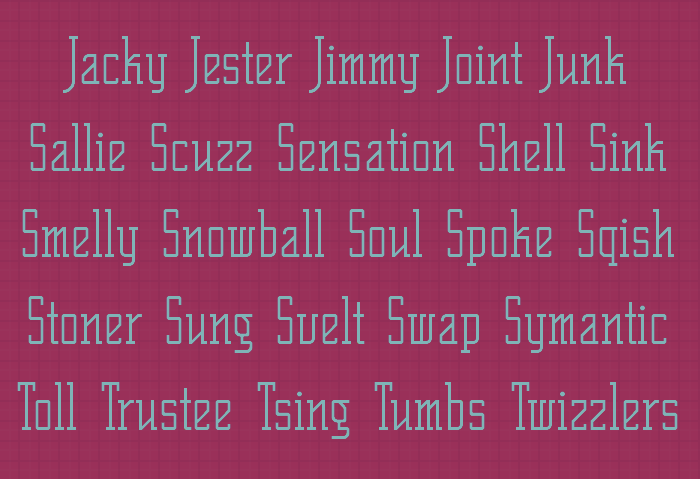
Its works very well together.
Very nice slab serif. Beautiful tall ascenders. Well-designed system for a font family in mind. VEROORDEELD (=convicted), really? Why the odd name? 10/10
About the name of the font "VEROORDEELD", (=convicted) that is correct.
The reason for my perhaps odd names is often simply inspirational source related (this is no different). Combine that with 800+ Fontstructions in total, and one can easily end up having a odd name!